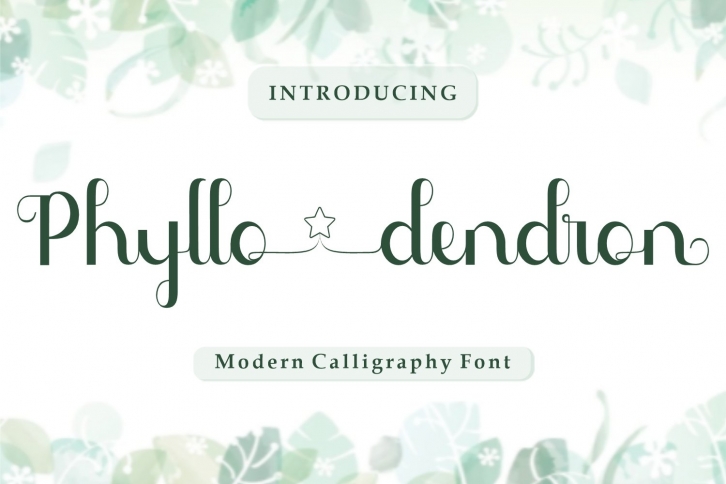
Phyllodendron is a trendy and unique font with an authentic style. It was designed by Nuryanto Dwi and it's a great choice for creative people who need such a font. It was released on September 14, 2021 and the file size is 19.30 MB. Phyllodendron will add an organic vibe to any design idea!